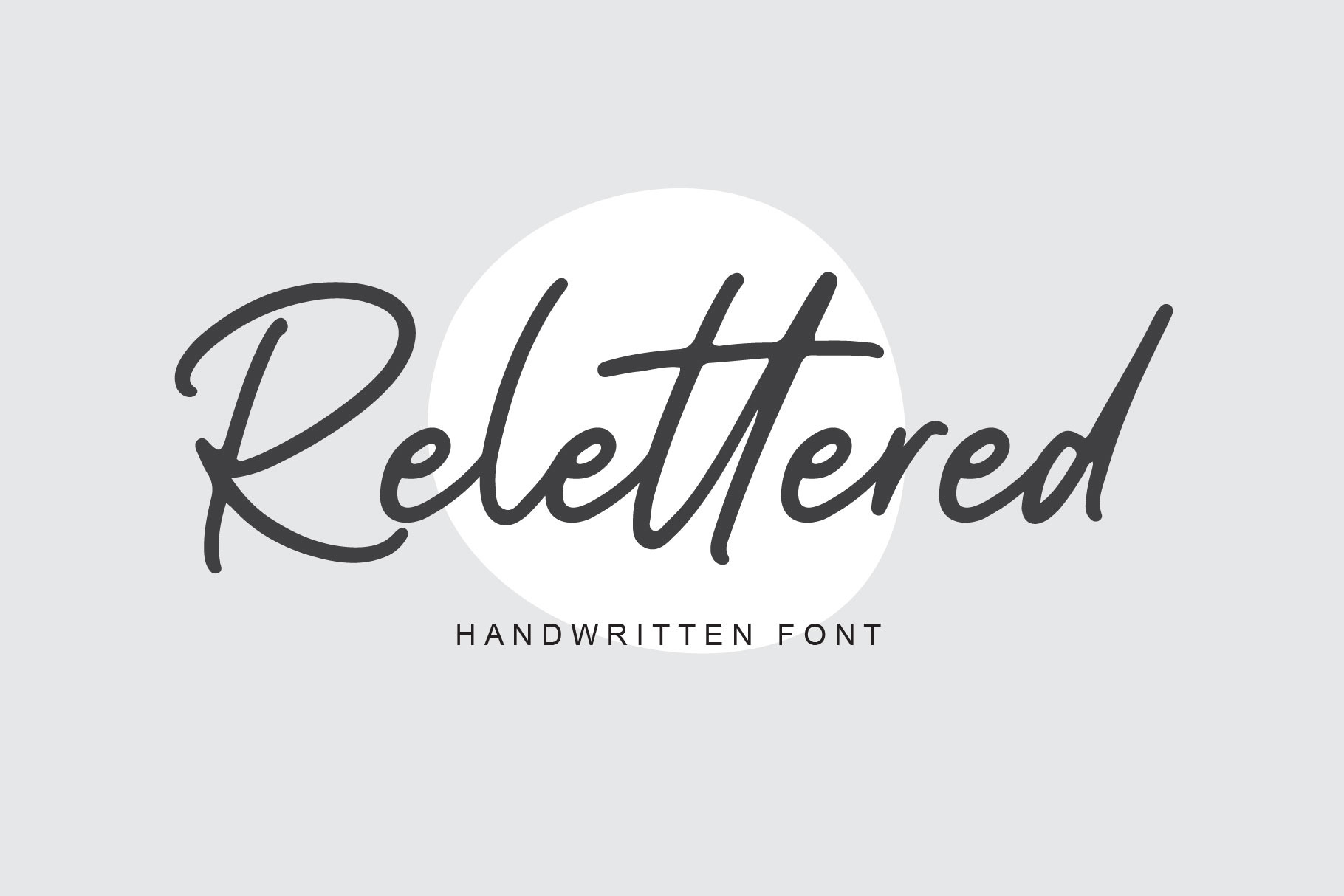
Relettered | Handwritten font
Hello everyone, this time we would like to introduce a handwritten font that we just made with passion and enthusiastic, this font comes with a touch of natural font.
Introducing this handwritten font called "Relettered | Handwritten Font", this natural font comes with uppercase letters, lowercase letters,ligatures, multilingual support, numbers and punctuation. This font is suitable for you to use as quotes, instagram posts, invitations, magazines, cards, product packaging, headers and whatever your imagination.